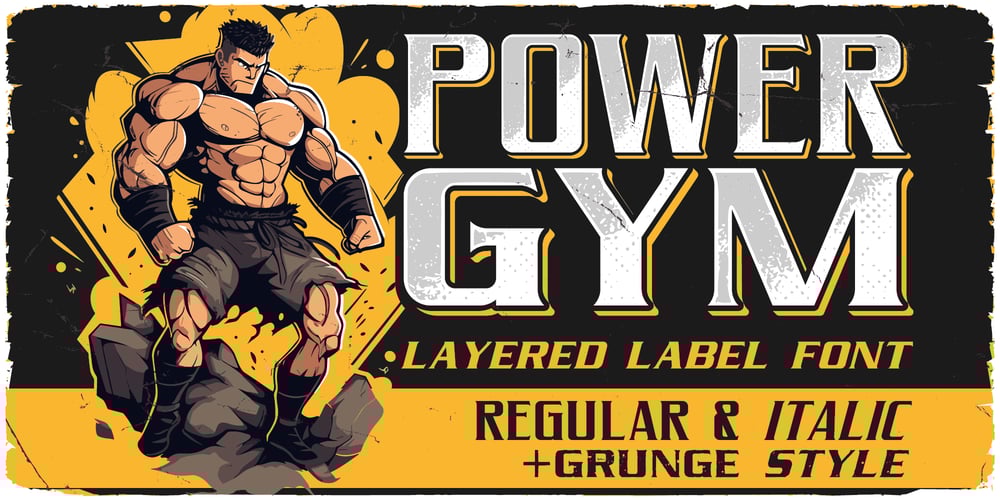
Power GYM Font Family was designed by Oleg Voznyy and published by Vozzy. Power GYM contains 14 styles and family package options. Introducing original label font named Power Gym. This font family has an additional characters and multilungual support (check out all available characters on previews). Regular and Script fonts has seven styles: Regular, Effect, Shadow, Texture, Shadow FX, Texture FX, Grunge. This font will look good on any sport styled designs like a poster, T-shirt, label, logo, etc.